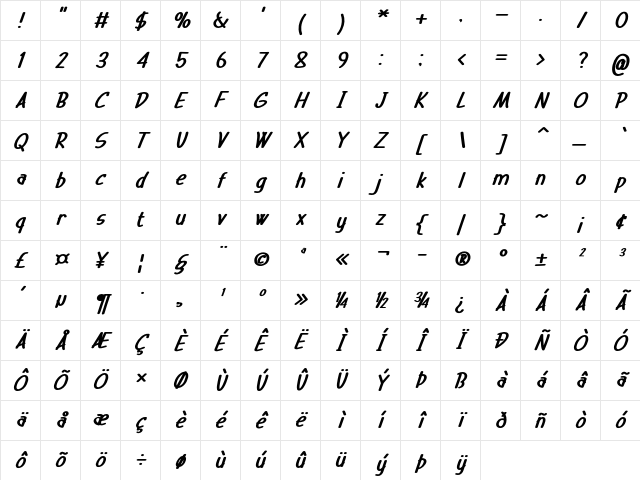
Tarnip Bold Italic Free Font
Tarnip Bold Italic
Tarnip Family
Design Context for Tarnip
Tarnip is a composed and adaptable typeface that performs quietly and consistently across a wide range of design contexts. The slanted form adds forward momentum and visual energy. Its bold stroke weight gives it real presence on the page.
Pro Tip: Use Tarnip for emphasis, pull quotes, and subheadings where its slanted energy can add rhythm to the layout.